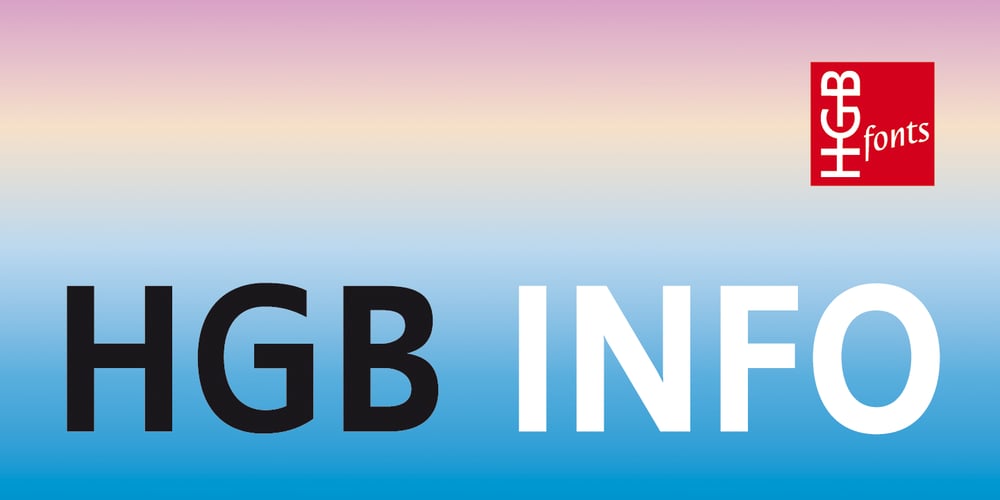
HGB Info
HGB Info font
HGB Info Font Family was designed by Hellmut G. Bomm and published by HGB fonts. HGB Info contains 4 styles and family package options. HGB Info is a display typeface for my Linotype Nautilus Monoline. This came about while working on the corporate design for the municipality of Weissach im Tal. Shorter ascenders and descenders and a broader letter shape result in more compact word images. The ups and downs are cut vertically. This works particularly well in large degrees. This is the area of ​​application on signage and information systems.